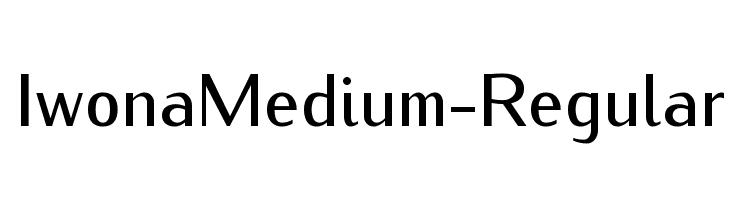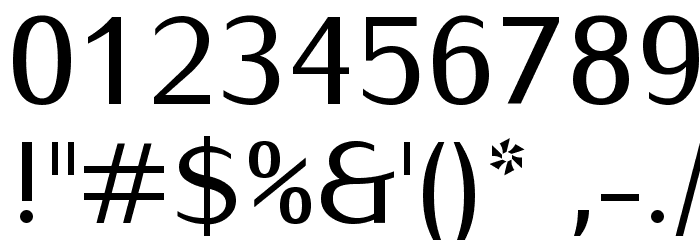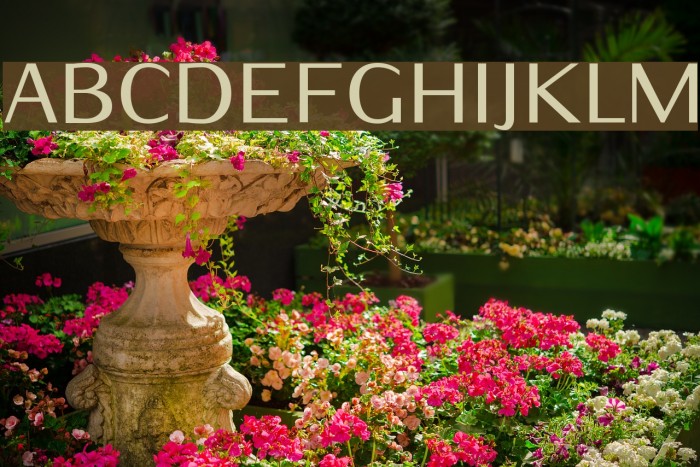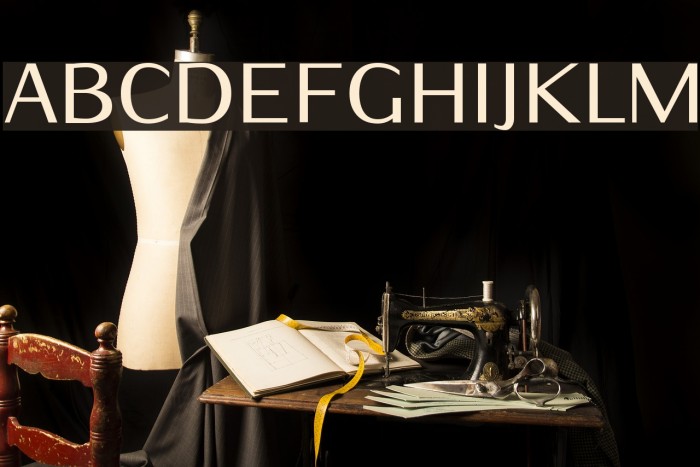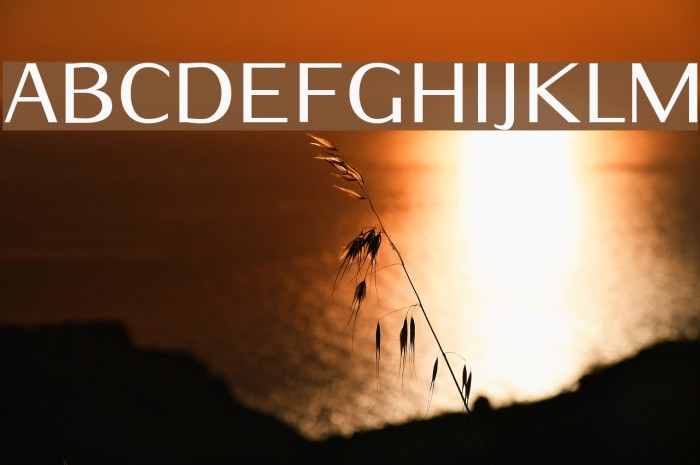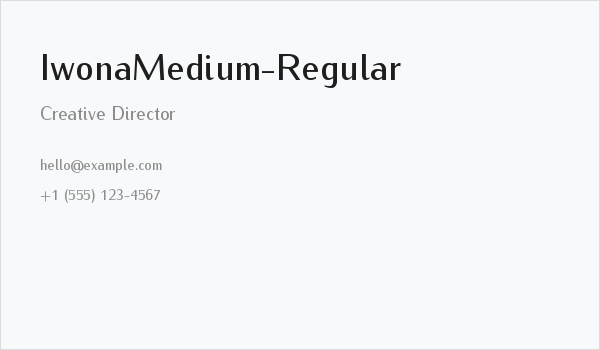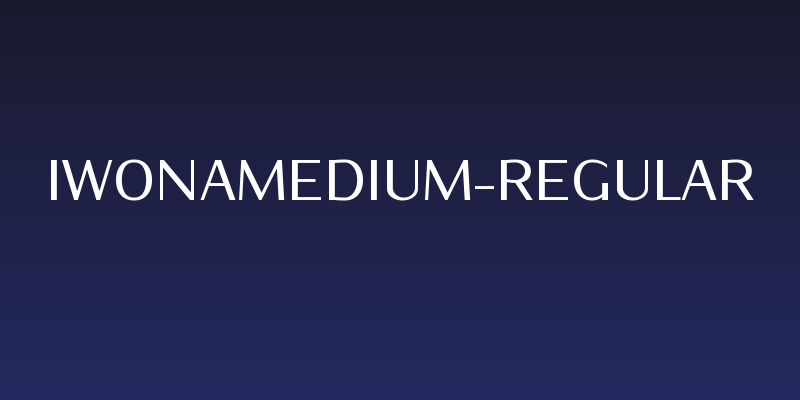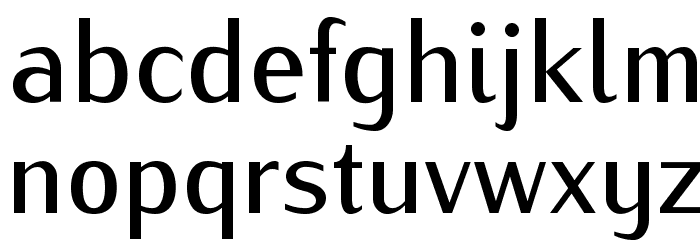
IwonaMedium-Regular Font
IwonaMedium-Regular Description
This font features a clean and modern sans-serif design with a balanced structure. The characters are well-proportioned, offering a harmonious blend of curves and straight lines. The uppercase letters are bold and assertive, while the lowercase letters maintain a friendly and approachable appearance. The numerals are clear and easy to read, making them suitable for various applications. Special characters are distinct and well-integrated into the overall design. The font's simplicity and elegance make it versatile for both digital and print media.
Use CaseHeadlines, Body text, Logos
Proposed ProjectsIdeal for branding, editorial design, web design, and corporate materials.